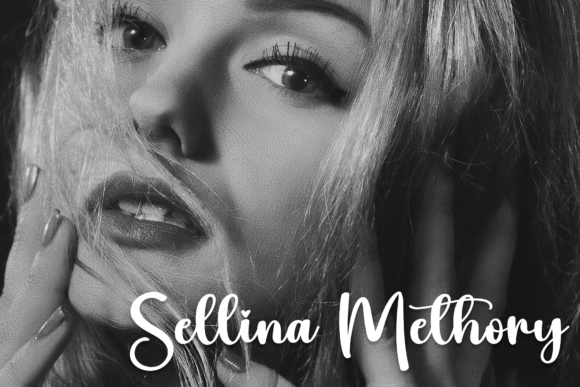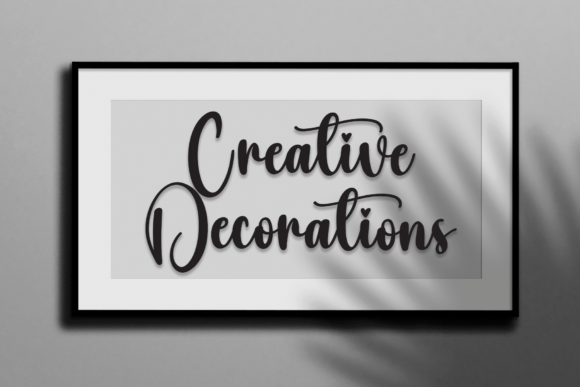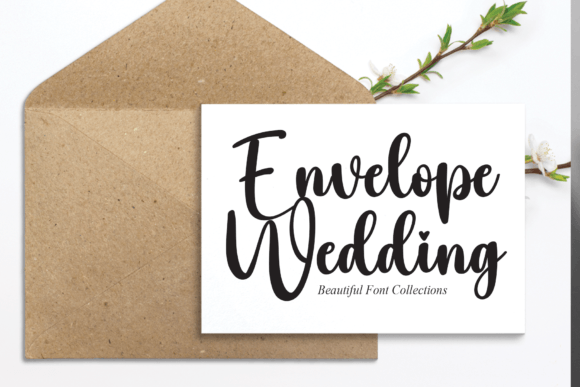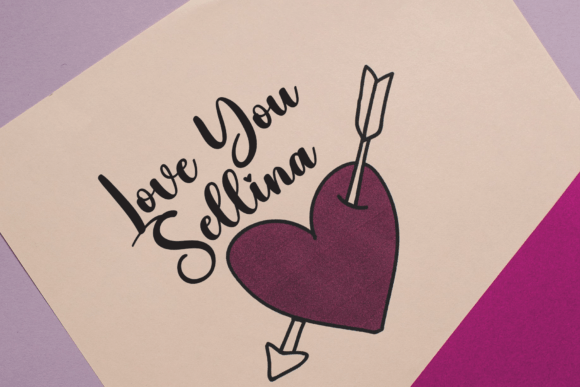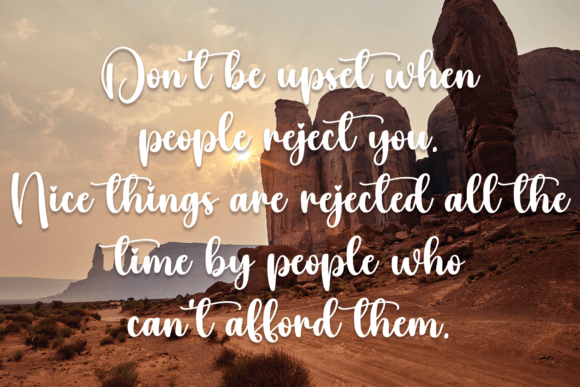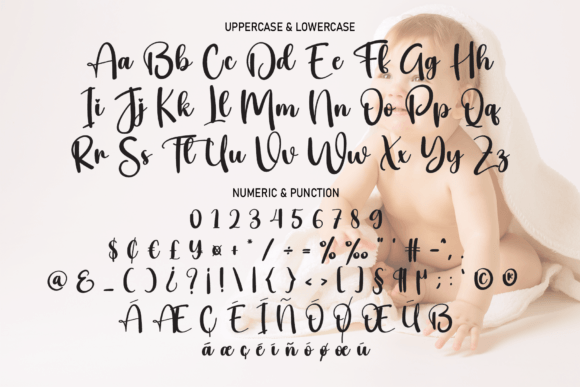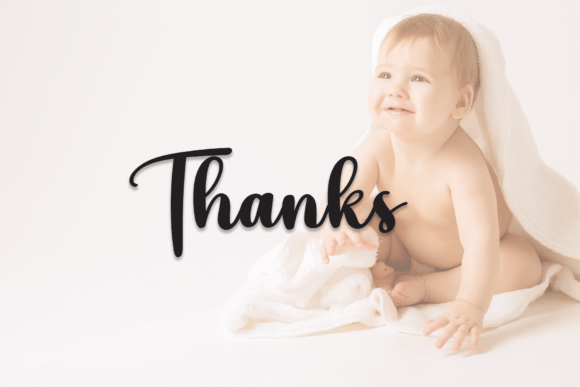
Bonny Font
About Bonny Font
Bonny’s latest style letters exude a timeless charm and elegance, making them an impeccable choice for a diverse array of creative projects. Whether you’re creating captivating wall displays, setting the tone for momentous occasions with wedding invitations, or establishing a unique brand identity through social media post logos, these letters seamlessly adapt to various applications. They add a touch of sophistication to advertisements, infuse grace into product packaging and designs, bring a refined character to labels, enhance the visual appeal of photography through watermarks, and lend an exquisite touch to invitations and stationery. Bonny’s style letters are the perfect choice for any project that requires a handwritten taste with a classic and elegant flair.
In the realm of visual aesthetics, Bonny’s letters bring a sense of timeless elegance to wall displays. The carefully crafted and well-balanced strokes create a visually pleasing atmosphere, transforming spaces into refined and sophisticated environments that leave a lasting impression.
For couples seeking to infuse a touch of grace into their celebrations, incorporating Bonny’s latest style letters into wedding invitations adds an air of sophistication. Whether it’s a script inspired by classic calligraphy or a modern lettering style with graceful nuances, these choices provide a unique invitation that sets the stage for a memorable celebration.
In the digital realm, Bonny’s letters evoke a sense of refined beauty when used in social media post logos. They infuse a feeling of timeless sophistication into branding efforts, allowing businesses or individuals to make a statement that resonates with the elegance of classic handwritten elements on various social media platforms.
Marketing endeavors find a unique ally in the versatility of Bonny’s letters. They add a touch of classic authenticity to advertisements, product packaging, and designs, creating an allure for consumers seeking a refined and elegant experience. From labels that echo the grace of traditional calligraphy to product designs that capture the essence of timeless beauty, these style letters are a valuable tool for marketers and designers alike.
Photographers can explore the classic side of creativity by incorporating Bonny’s letters as watermarks in their work. The elegant and well-balanced nature of these letters adds a layer of timeless charm to photographs, creating a visually enchanting experience for viewers.
Invitations crafted with Bonny’s letters carry an air of refined beauty. The ability to customize and infuse a handwritten taste ensures that each invitation is a unique reflection of the event’s theme and the host’s appreciation for classic and elegant aesthetics.
In the realm of stationery, Bonny’s style letters add a touch of timeless sophistication to various products. From personalized notecards that convey a sense of grace to professional letterheads that exude a classic flair, these letters turn everyday stationery into works of art that resonate with the refined and elegant spirit.
In summary, Bonny’s latest style letters offer a creatively versatile tool for a wide range of projects. Whether it’s infusing timeless elegance into wedding invitations or adding a refined authenticity to advertisements, these letters bring a touch of classic beauty and a handwritten taste to any project that seeks to capture the timeless and sophisticated spirit.